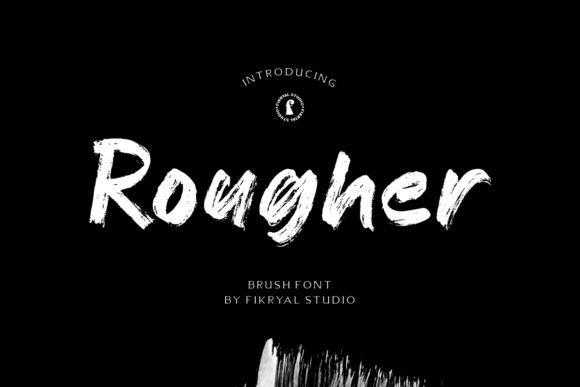
Introducing Rougher Script font - a remarkable creation by Fikryal Studio that transports you to an era of artistic charm and rugged sophistication. This font captivates with its raw, hand-drawn appearance, reminiscent of the textures and irregularities of natural brushstrokes. Rougher is more than just a font; it's a work of art that breathes life into your designs, evoking a sense of authenticity and uniqueness that's hard to resist.
Unleash the untamed spirit of Rougher and witness the transformation of your creative projects. From bold headlines that demand attention to captivating logos that leave a lasting impression, Rougher commands attention effortlessly. Its organic flow and subtle imperfections add a touch of rustic elegance to posters, invitations, and packaging designs, making them stand out from the ordinary.
Whether you're a seasoned designer or just starting your creative journey, Rougher Brush Font is the perfect companion for your artistic endeavors. Its versatile nature allows you to experiment with a wide range of styles, from vintage and retro designs to contemporary and modern aesthetics. Create eye-catching social media posts, stunning website headers, or heartfelt greeting cards that speak volumes without uttering a single word.
With Rougher by your side, the possibilities are endless. Its distinct character adds depth and personality to your designs, inviting your audience to engage and connect with your message on a deeper level. So, embrace the raw beauty of Rougher and unlock the gateway to extraordinary design experiences that leave an unforgettable mark on all who encounter them.